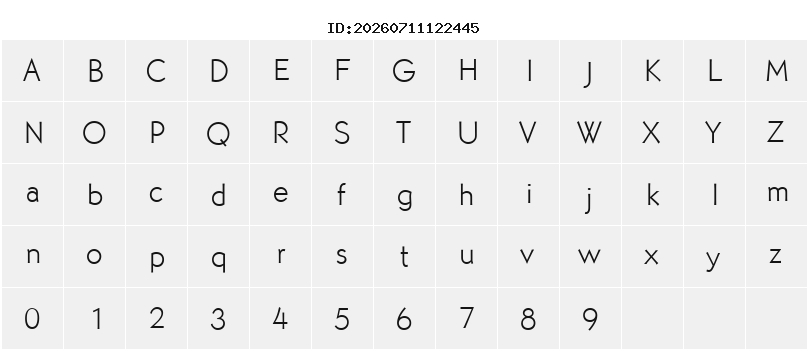
MartinGothic Preview
• Font Name: MartinGothic
• Full Font Name: MartinGothic-Light
About MartinGothic.ttf
MartinGothic.ttf is a modern, elegant sans-serif font designed for ultimate readability and visual harmony. Perfect for branding, headlines, web design, and print materials.